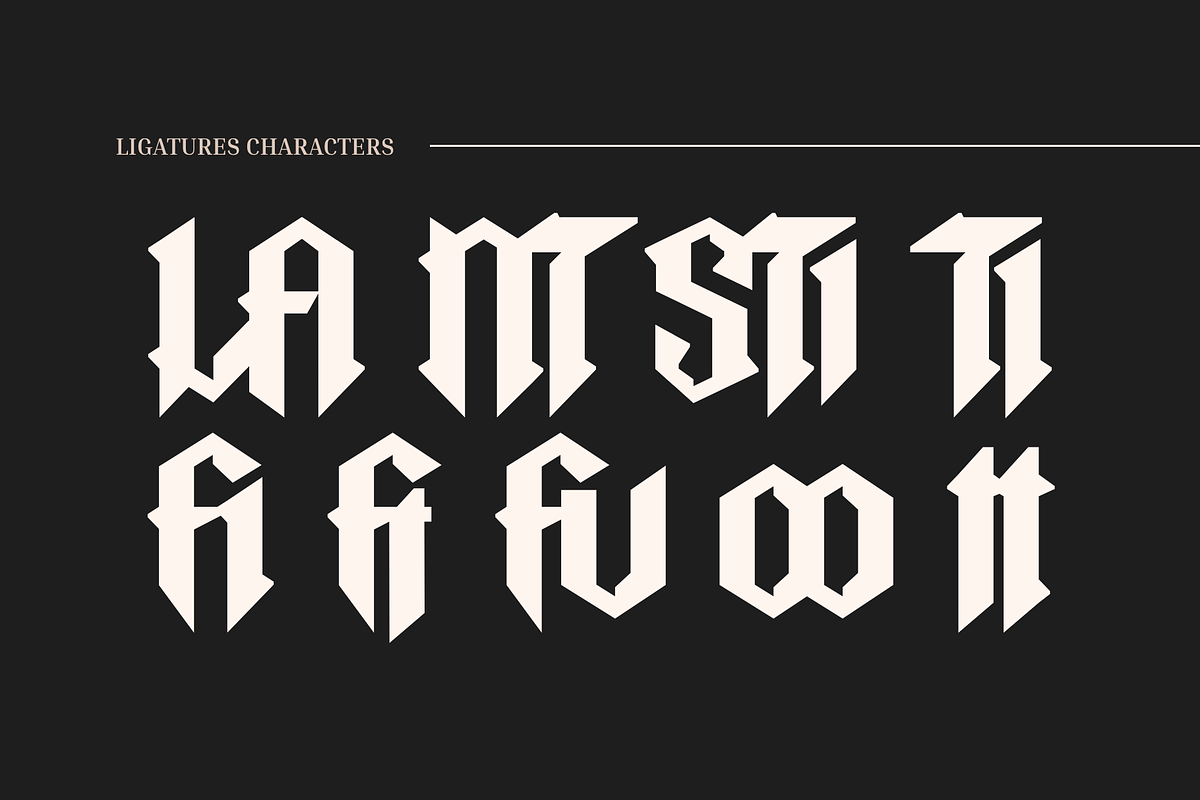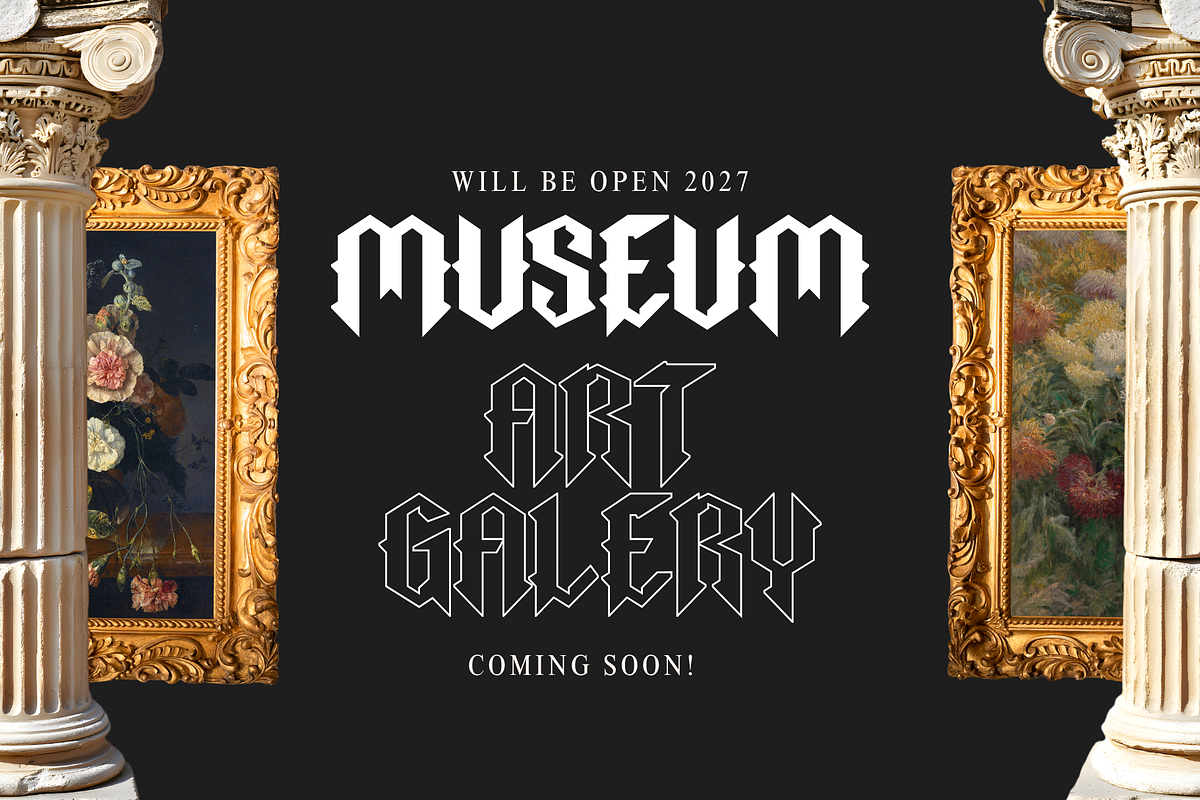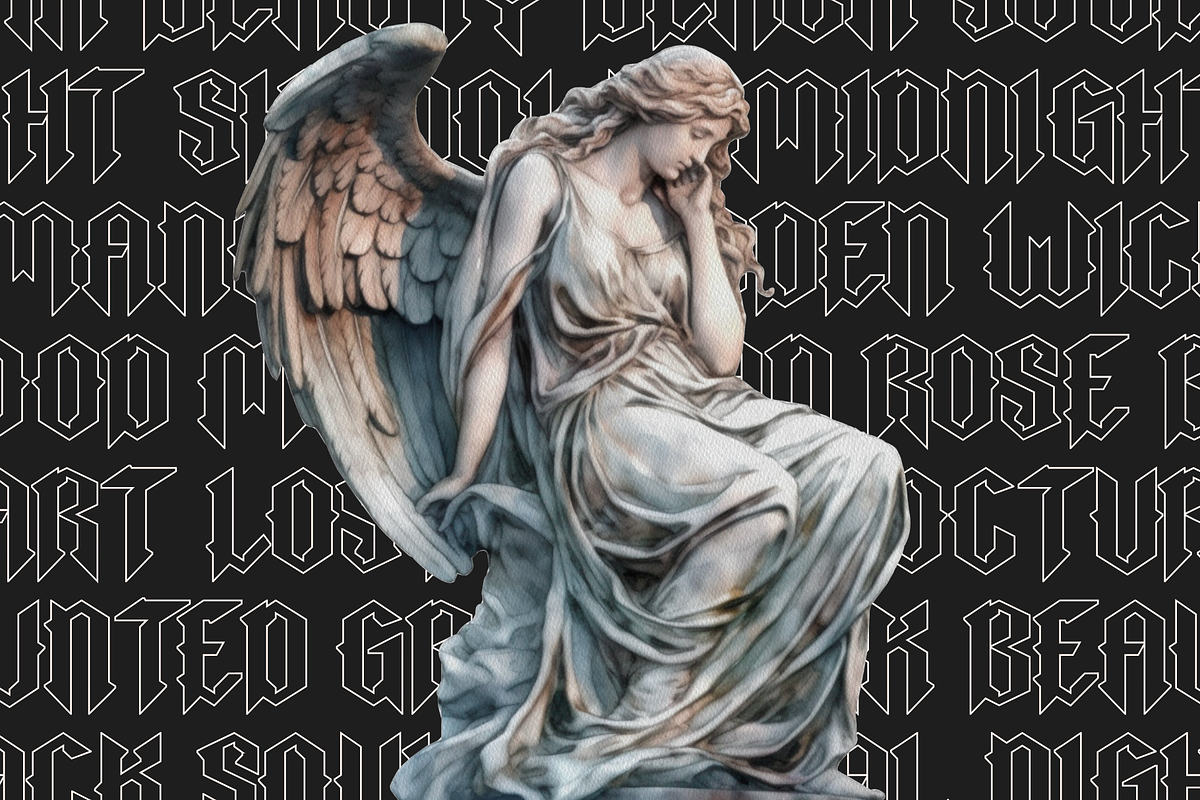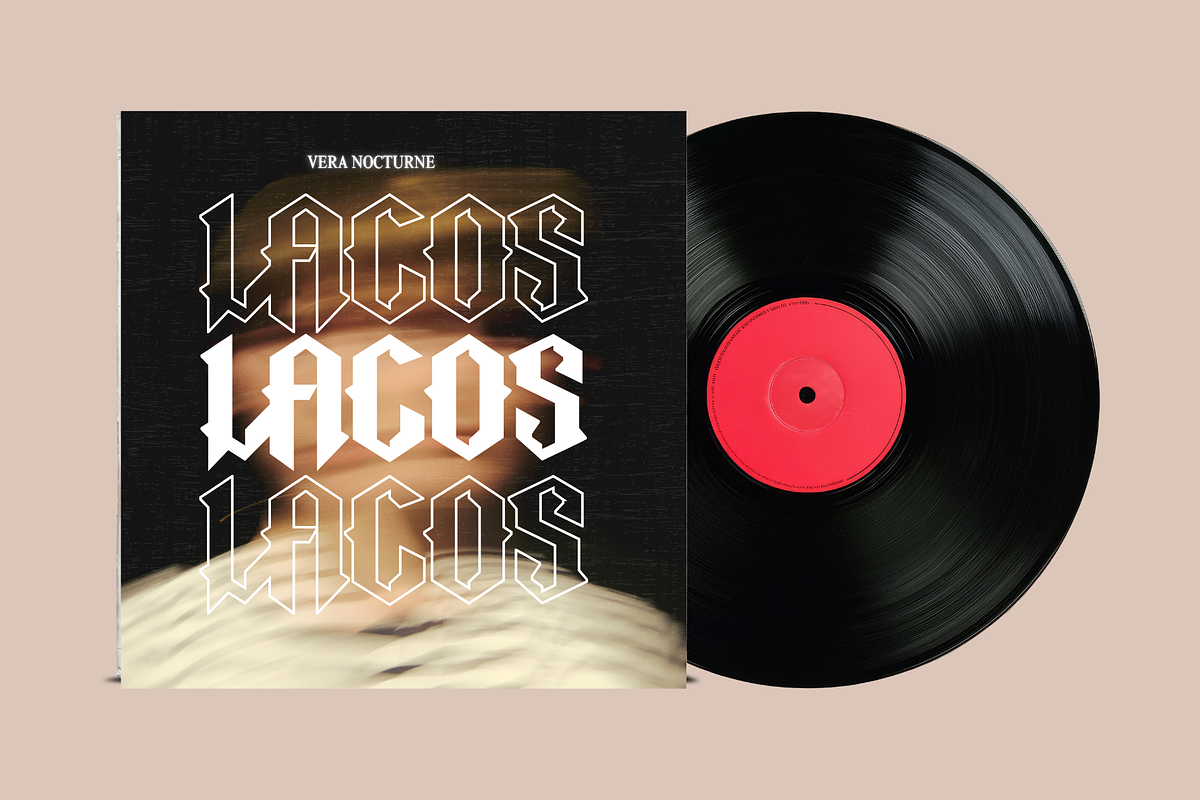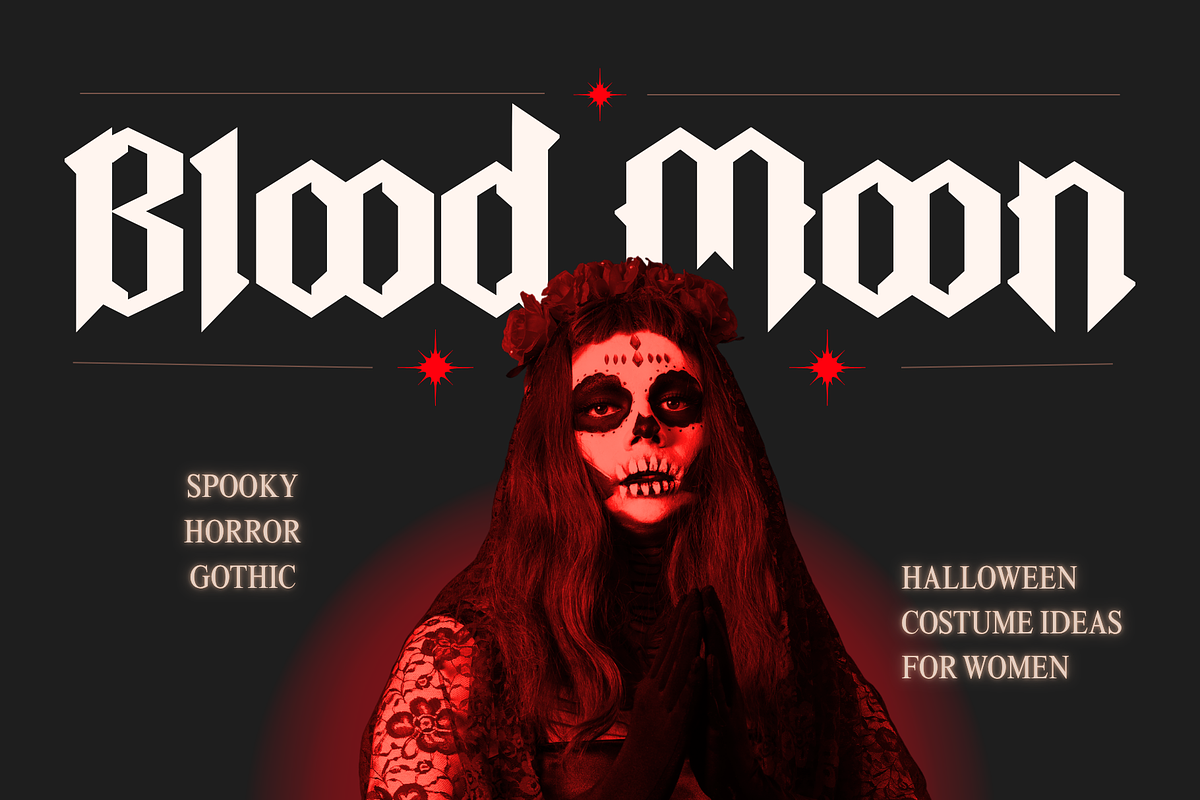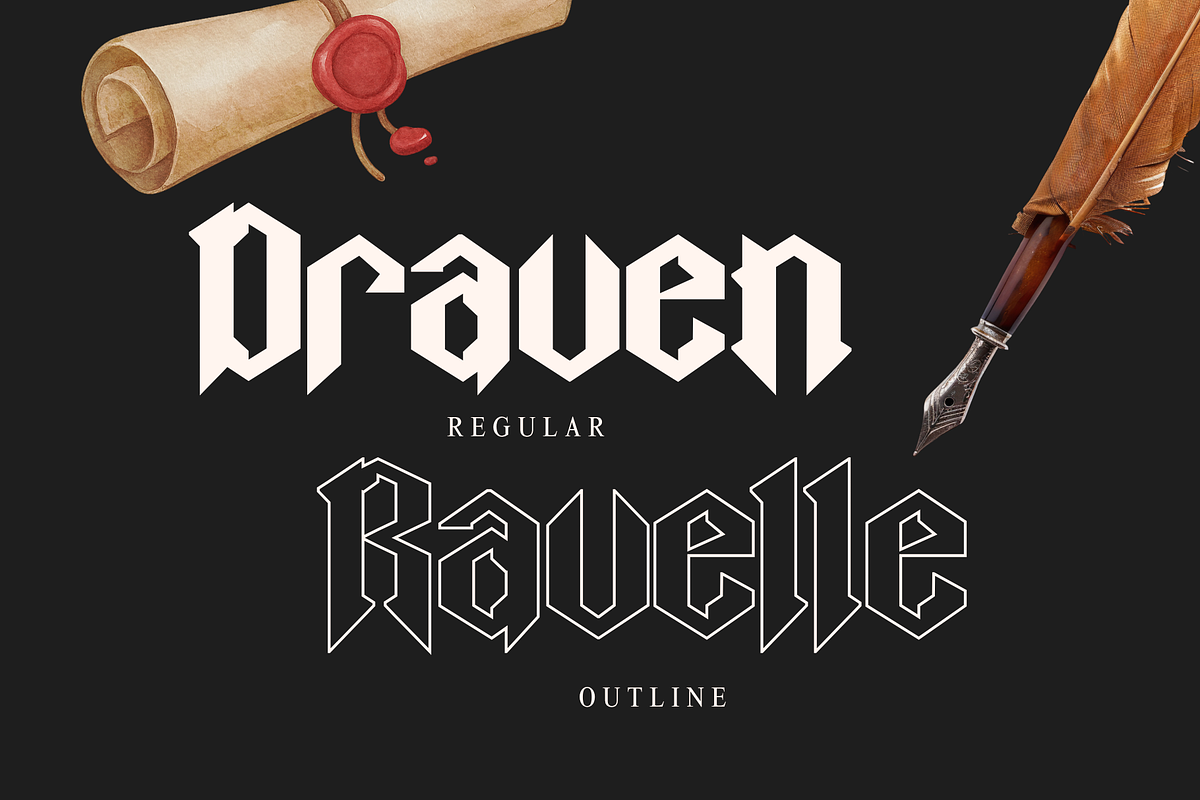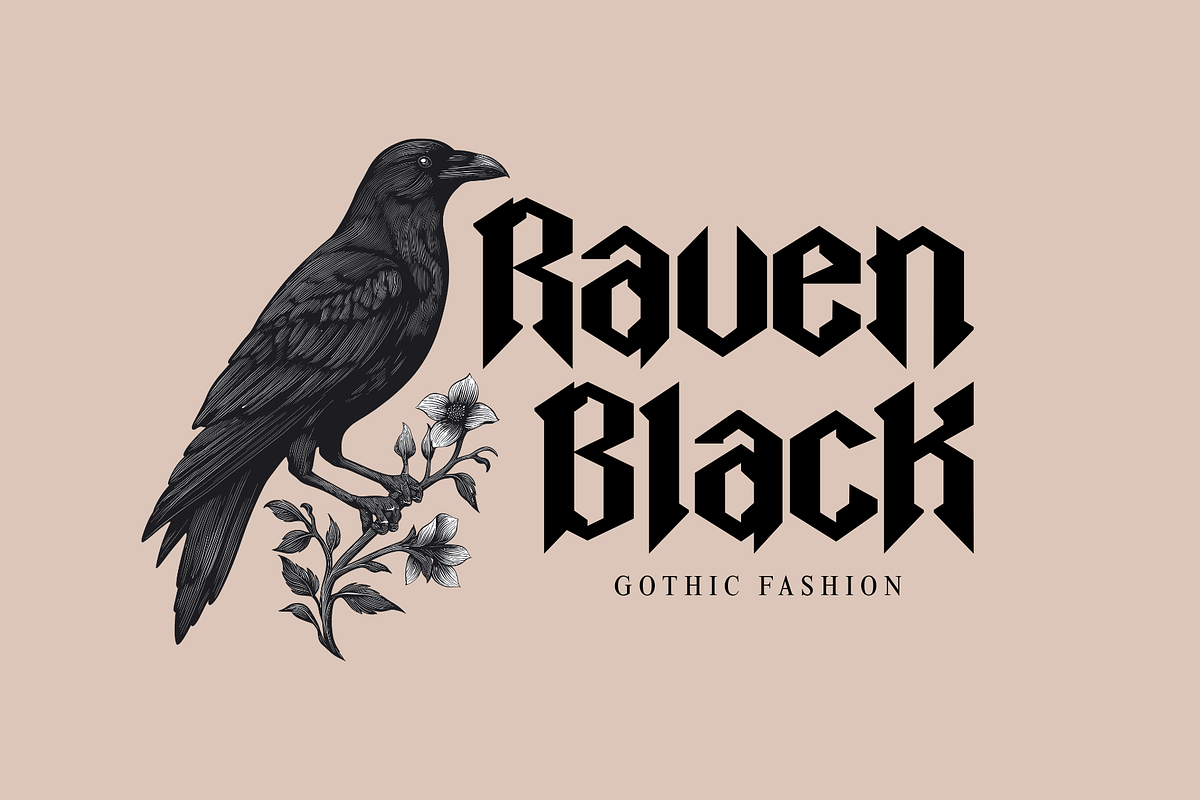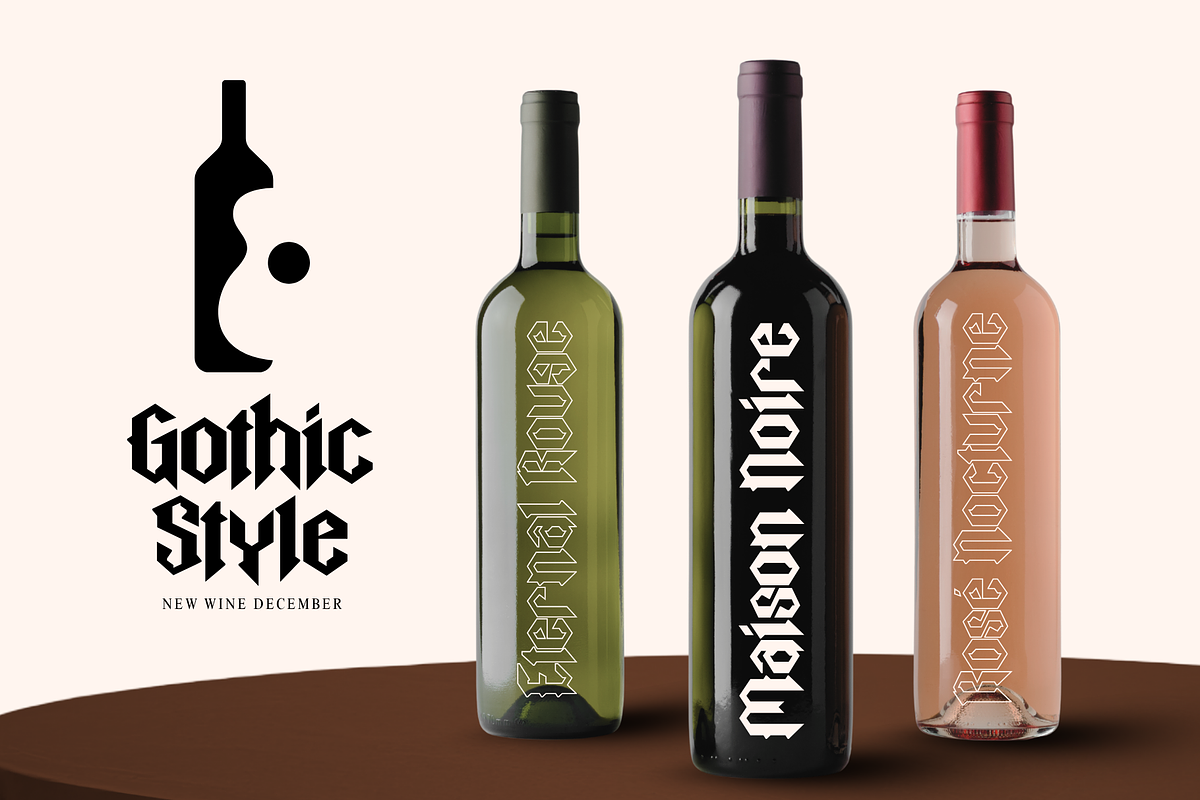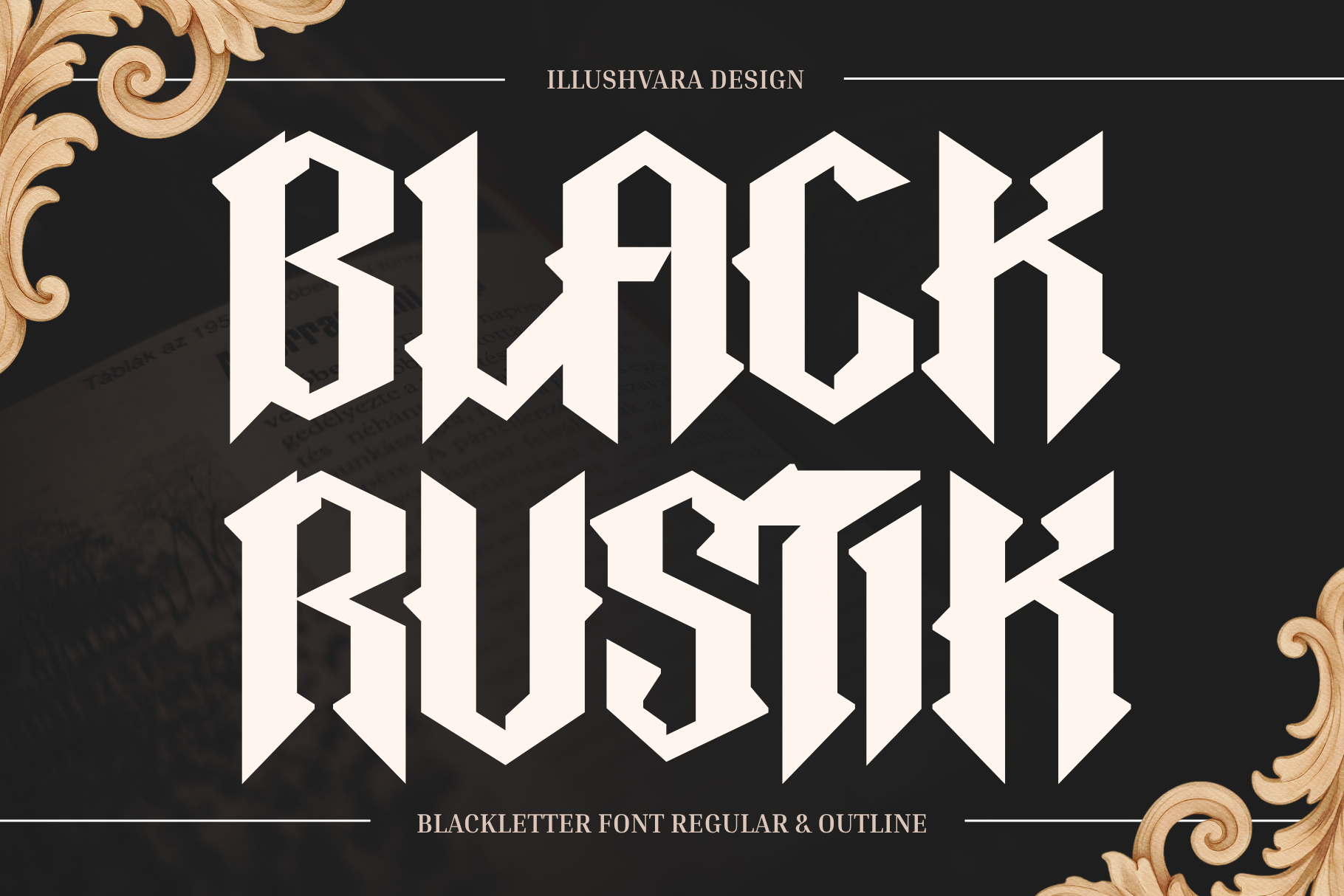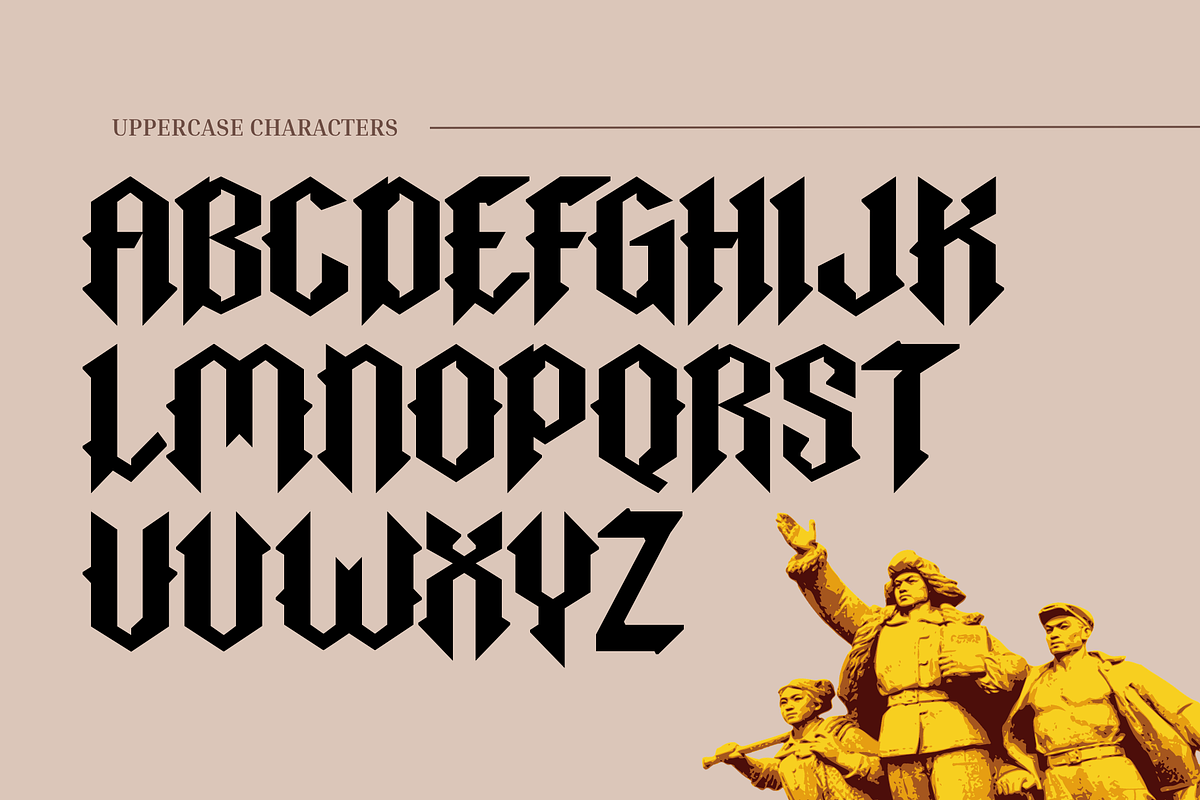
Black Rustik - Blackletter Logo Font
A bold and elegant Black Rustic font created for designers who want a dark, mysterious, and timeless aesthetic. Featuring Regular and Outline styles, this typeface offers versatile options for creating powerful headlines, logos, and expressive typography. Perfect for branding, fashion, magazines, posters, album covers, tattoos, packaging, labels, and editorial designs. The Regular style delivers a classic blackletter character, while the Outline style adds a dramatic decorative touch. Ideal for luxury, gothic, vintage, metal, and alternative-inspired projects.